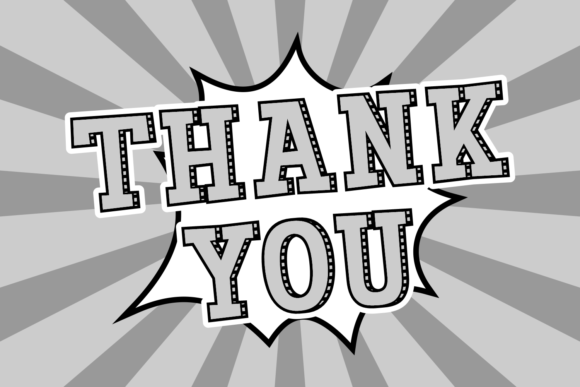
Introduction to Great Comic Font Font
Fonts play a crucial role in design, and the Great Comic Font font is a typeface that brings both character and versatility to any project. Whether you’re working on a branding project, a website, or a print design, the Great Comic Font font offers a unique style that can elevate your work.
Great Comic is a comic-style slab serif font.
The thick serifs and the captivating 3D look make it ideal for various designs such as posters, book covers, advertising materials, magazines, books, websites, and more Stand out by using this unique typeface in your next creative project.
Key Features of Great Comic Font Font
Why Choose Great Comic Font Font?
The Great Comic Font font is more than just a typeface – it’s a design tool that helps you communicate your message with style and clarity. Its unique character set and versatile design make it suitable for a wide range of applications, from elegant invitations to bold headlines.
With its carefully crafted letterforms and balanced proportions, the Great Comic Font font ensures readability and visual appeal across all mediums.
What makes Great Comic Font font special?
The Great Comic Font font stands out with its unique design, exceptional readability, and versatility across various design applications.